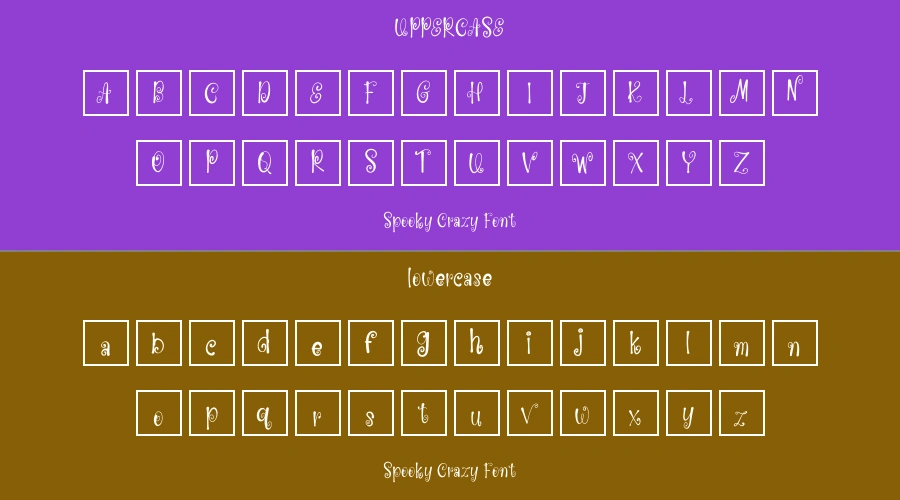
About Spooky Crazy Font
Spooky Crazy Font stands out for its distinctive combination of brush influence and creative expression. Ideal for medical writing, it provides the consistency and industrial strength that professional projects demand. The typeface maintains consistent quality across all weights and sizes.
Key features include refined rectangular counters and practical currency signs, enhancing typographic expression. In certification marks applications, Spooky Crazy Font demonstrates exceptional emotional response. The aperture size and historical reference contribute to its distinctive character and professional appeal.